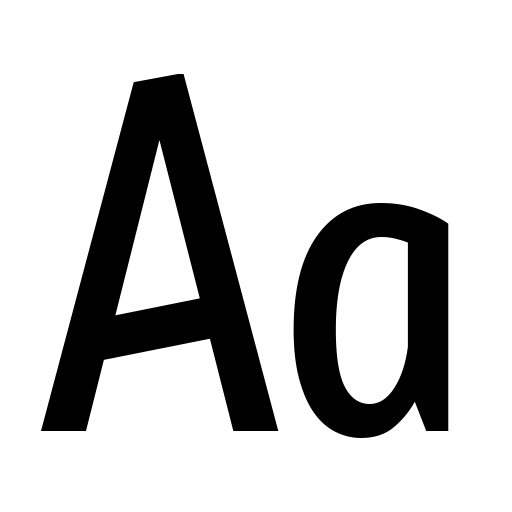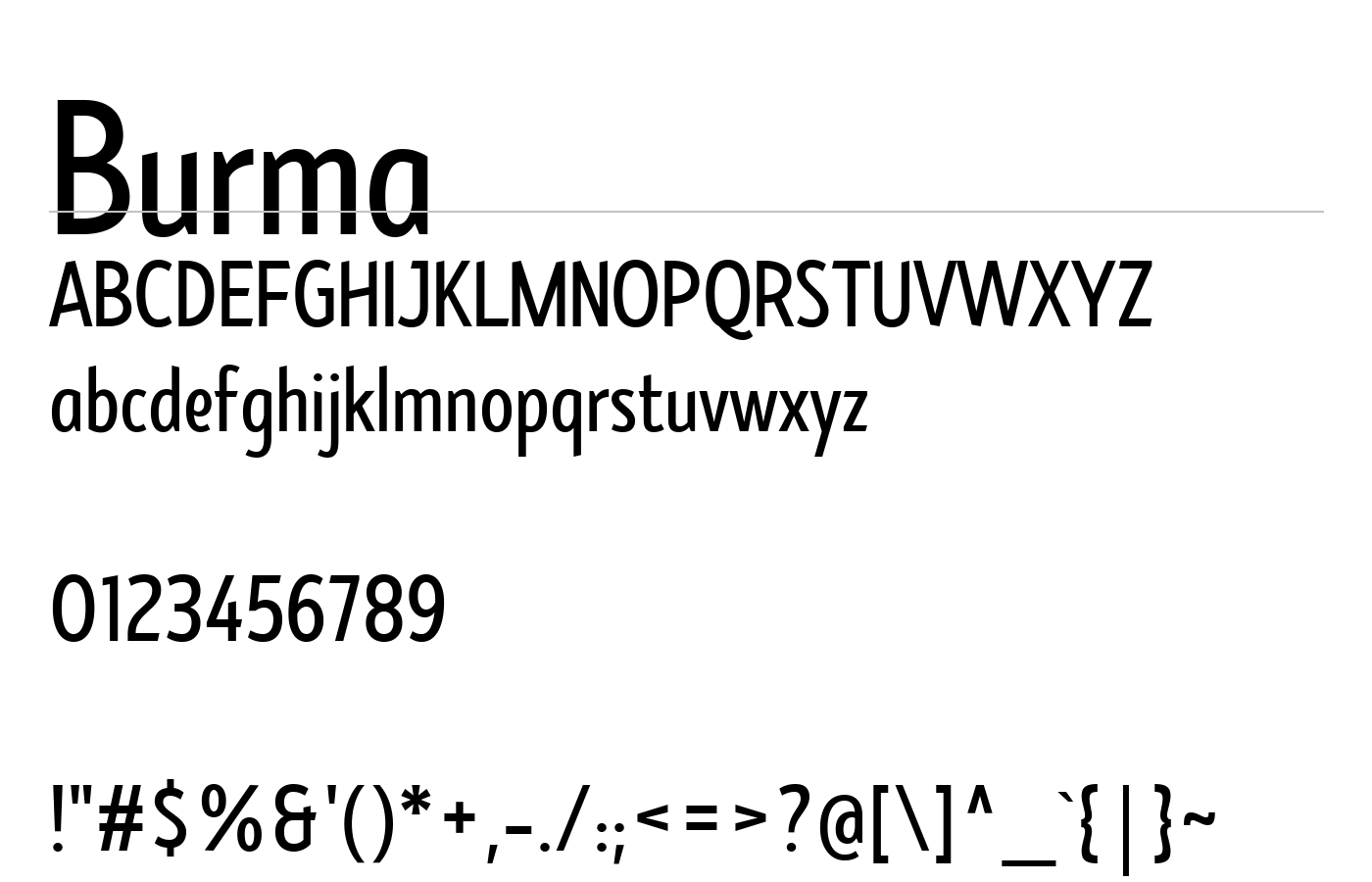
Burma Font is a tall, narrow sans serif with a clean and modern feel, characterized by its slightly condensed width and medium stroke contrast. Its unique letterforms, such as the curved tail on the Q and single-story a and g, add personality while maintaining legibility. This font works well for headlines, branding, and editorial projects where a contemporary, stylish, and slightly playful tone is desired.
Burma Font
About Burma Font